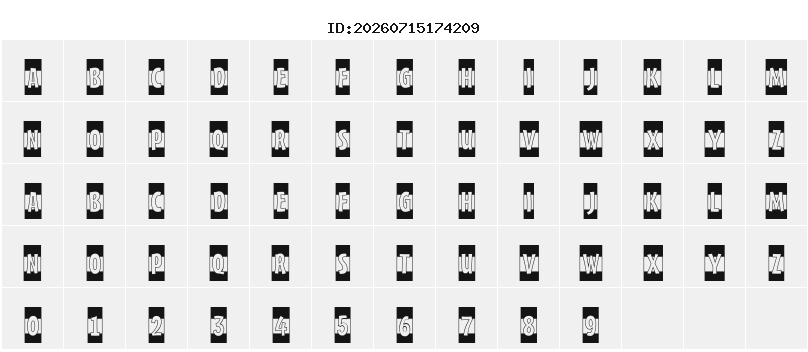
a_FrudgerB&W Preview
• Font Name: a_FrudgerB&W
• Full Font Name: a_FrudgerB&W
• Designer: W.Chufarofsky & M.Slutsker
About a_FrudgerB&W.ttf
a_FrudgerB&W.ttf is a modern, elegant sans-serif font designed for ultimate readability and visual harmony. Perfect for branding, headlines, web design, and print materials.